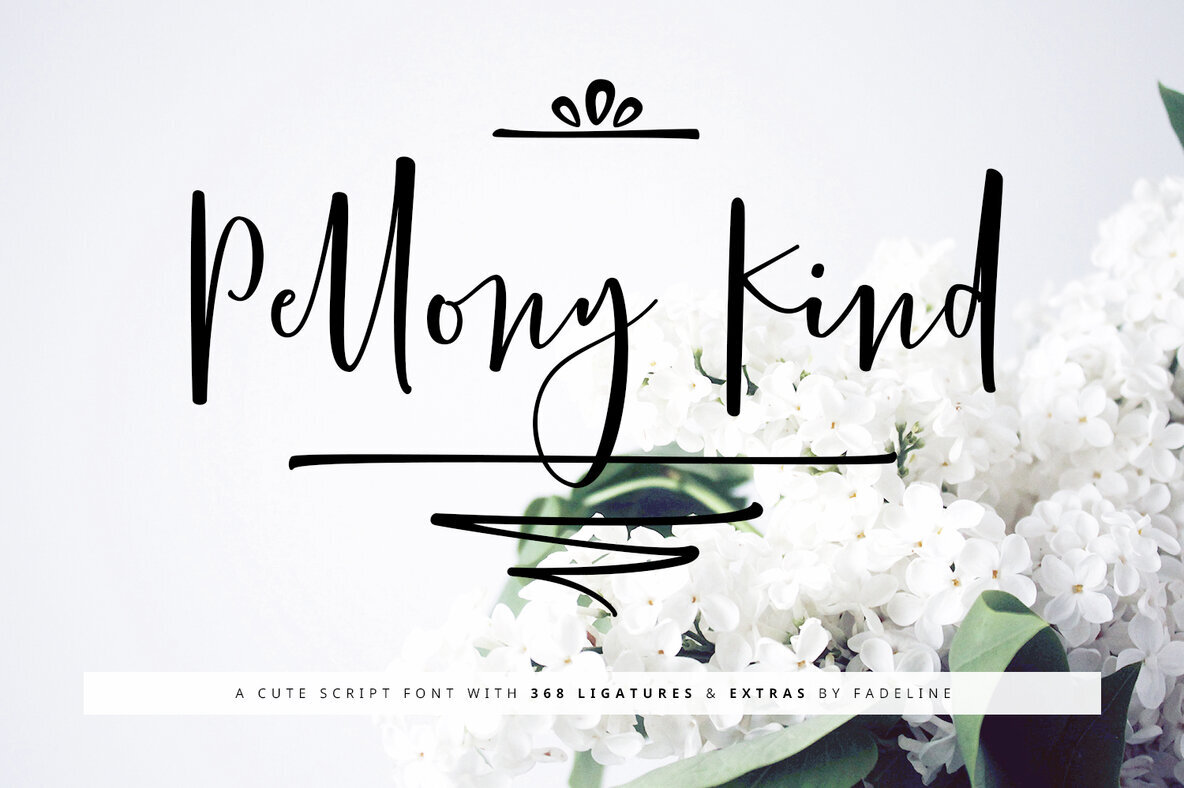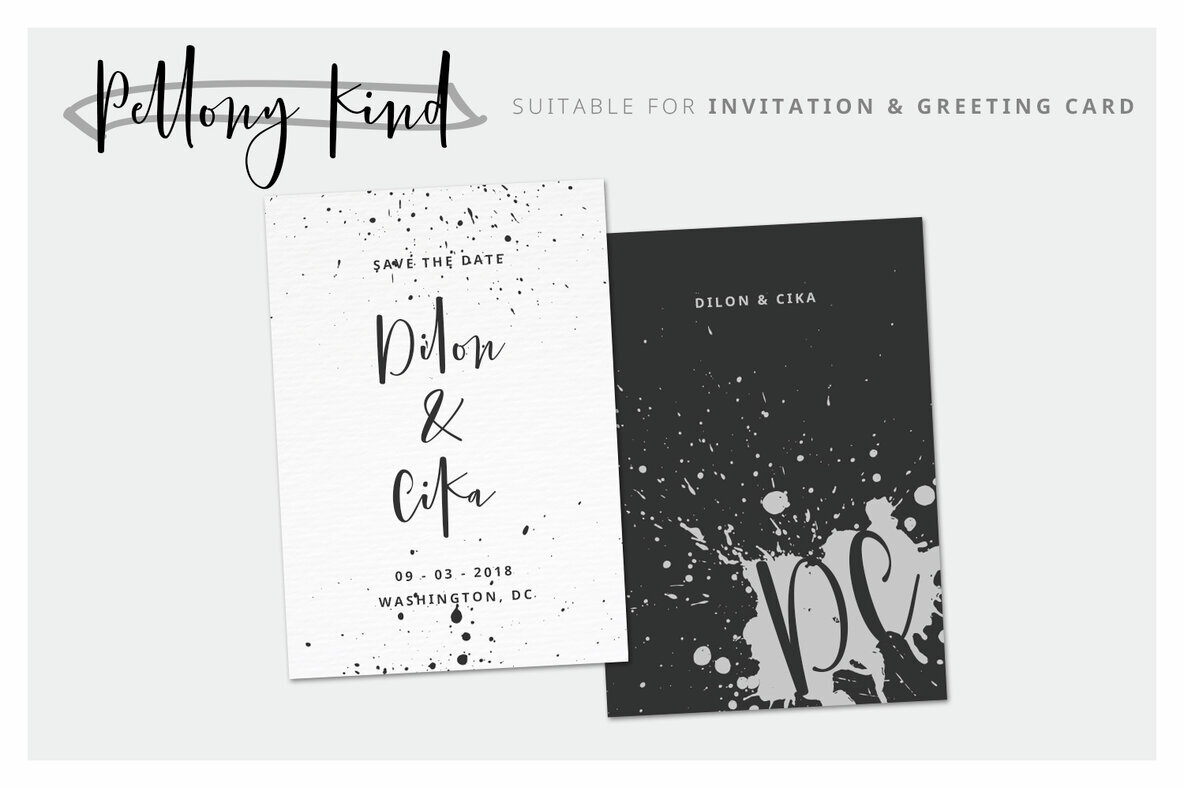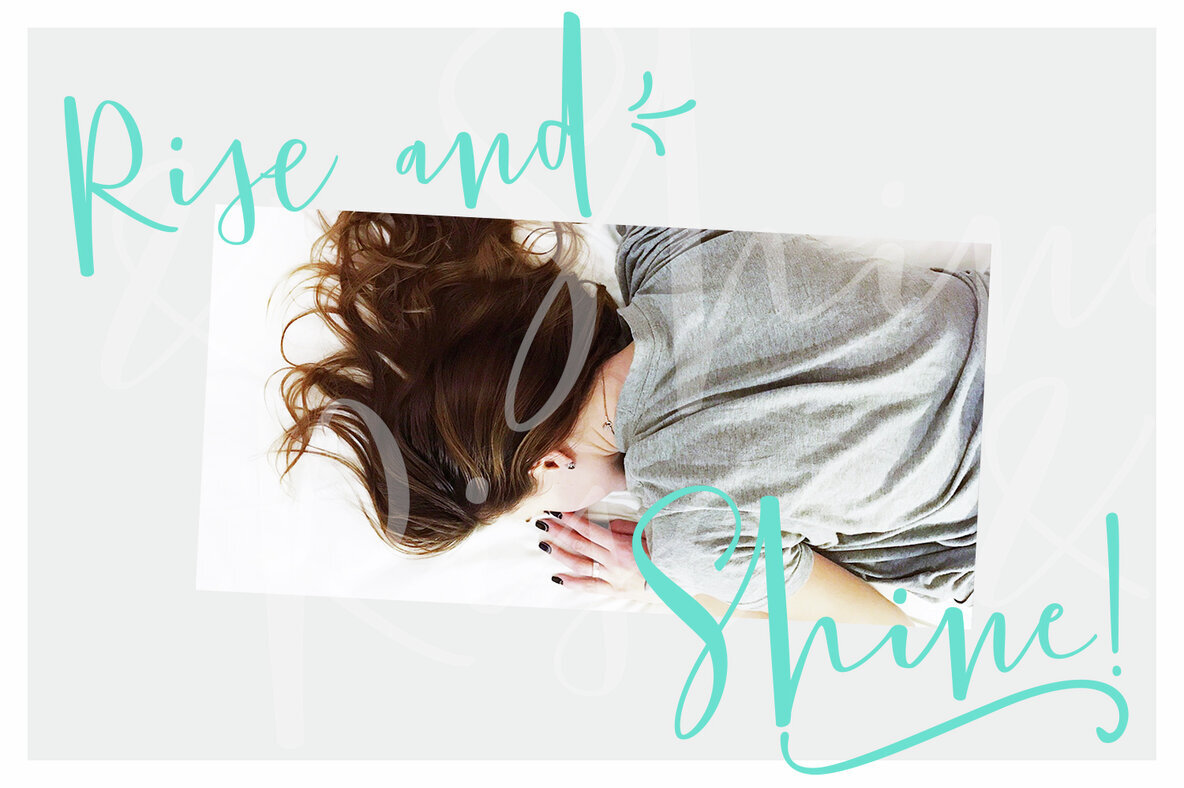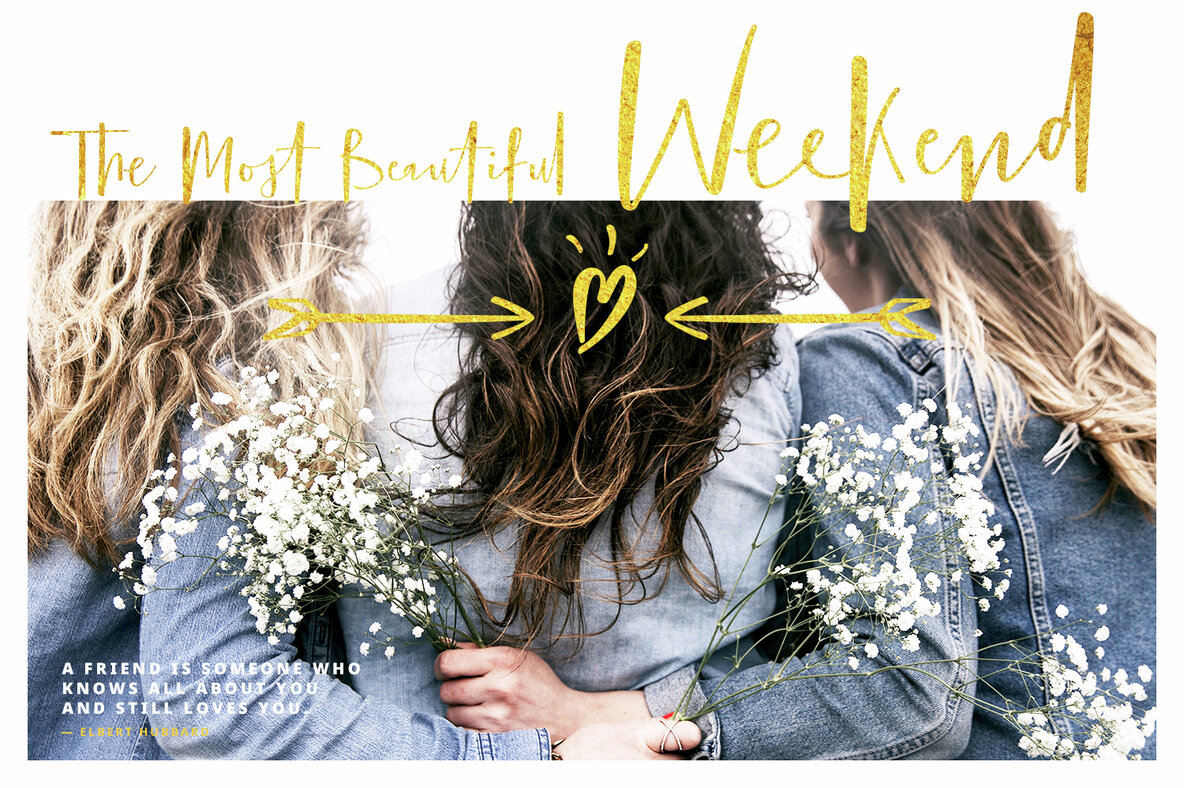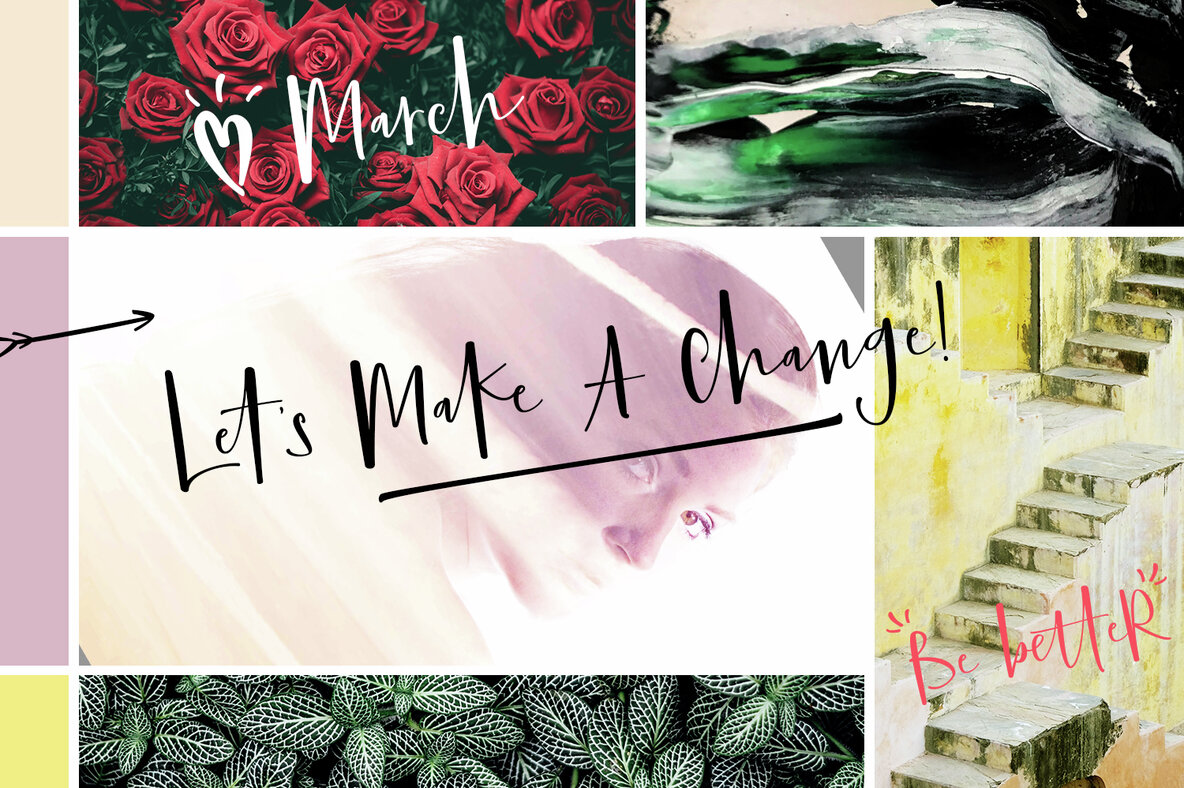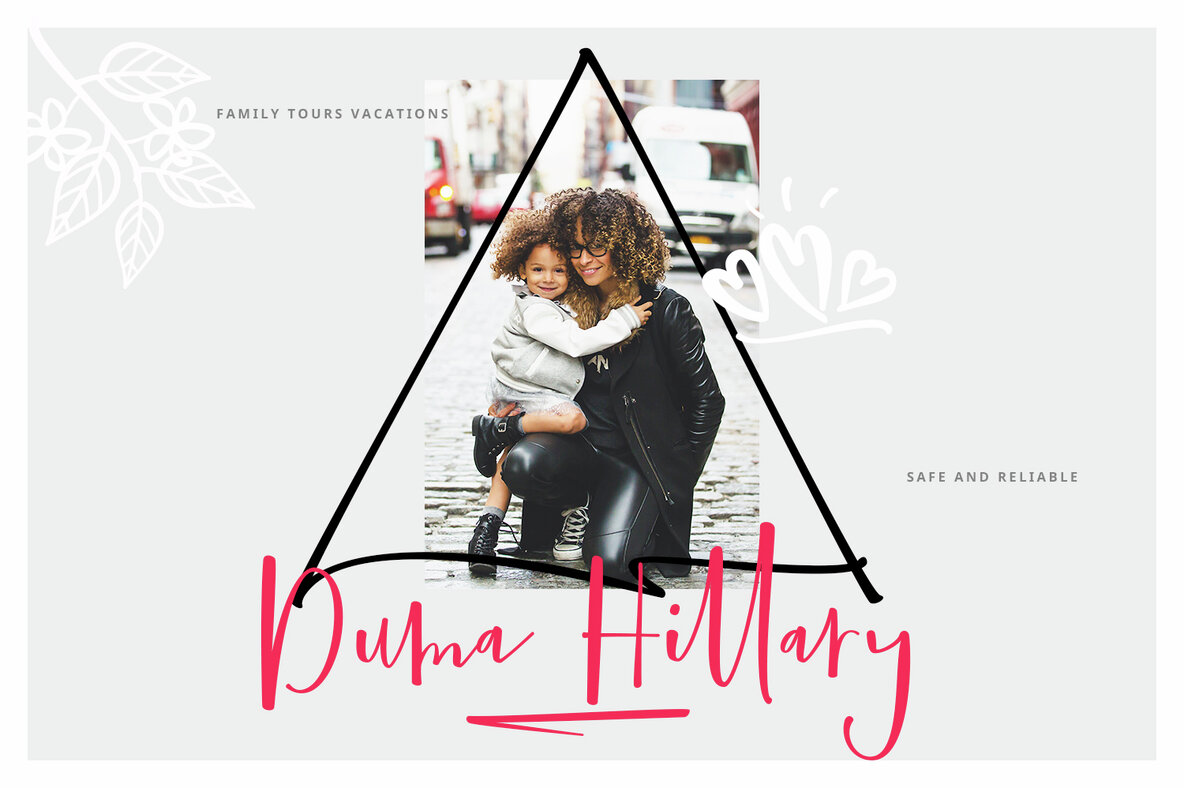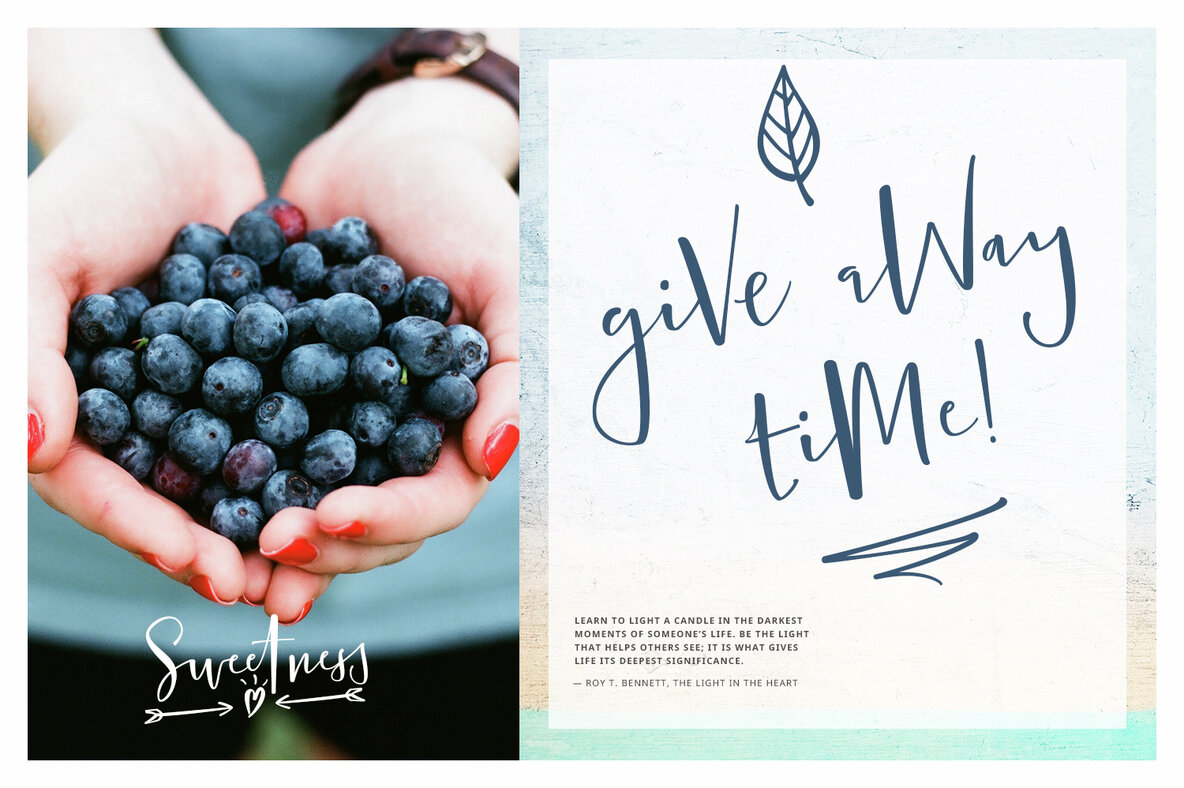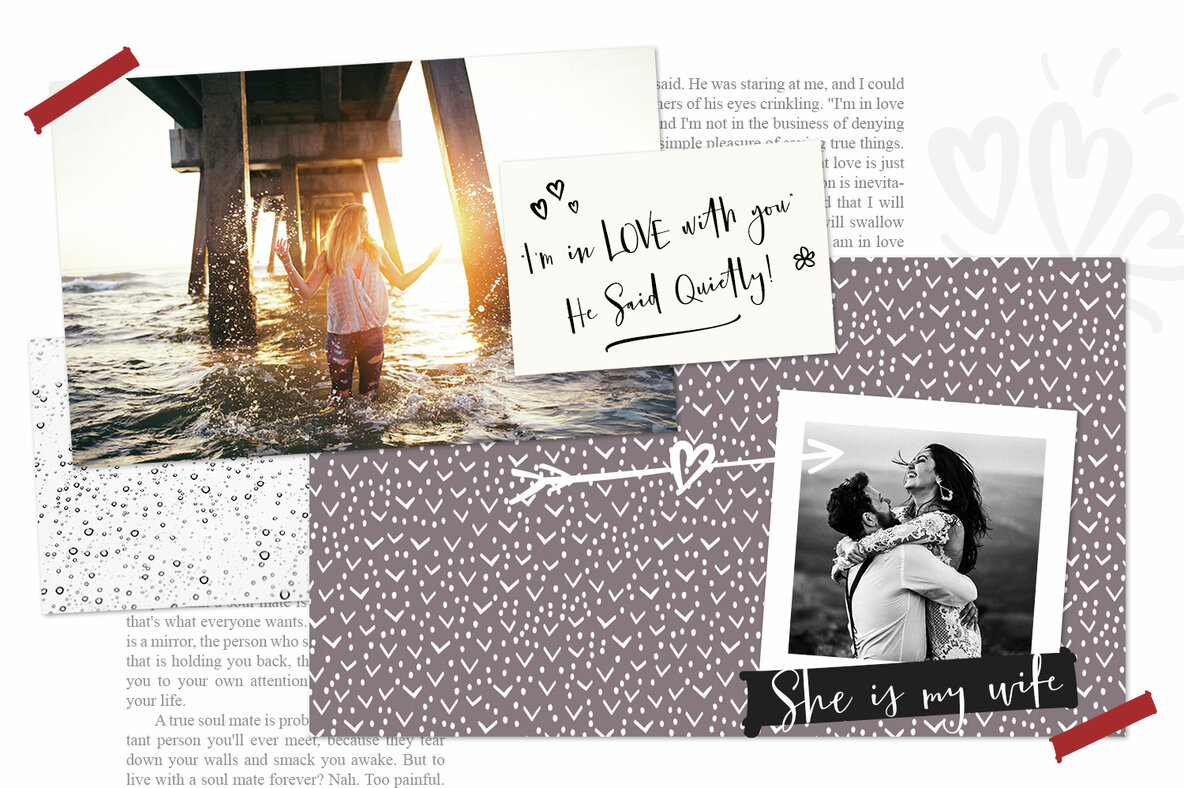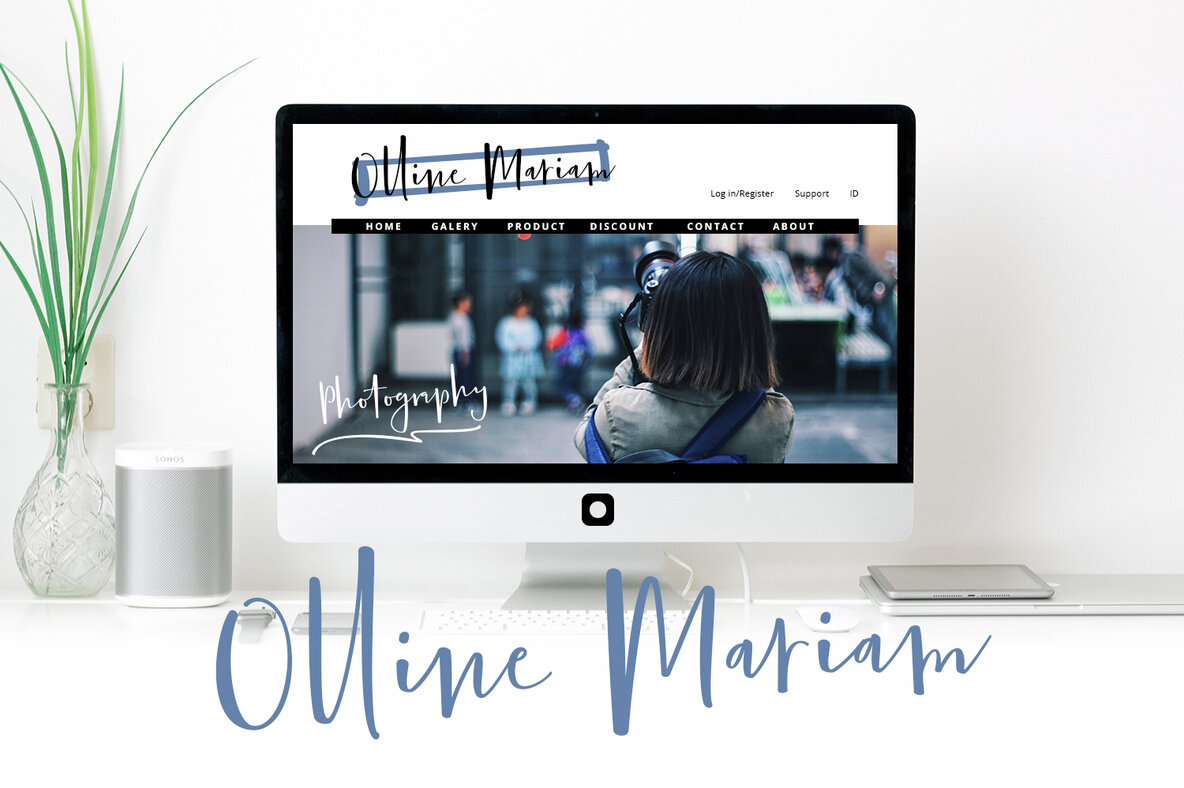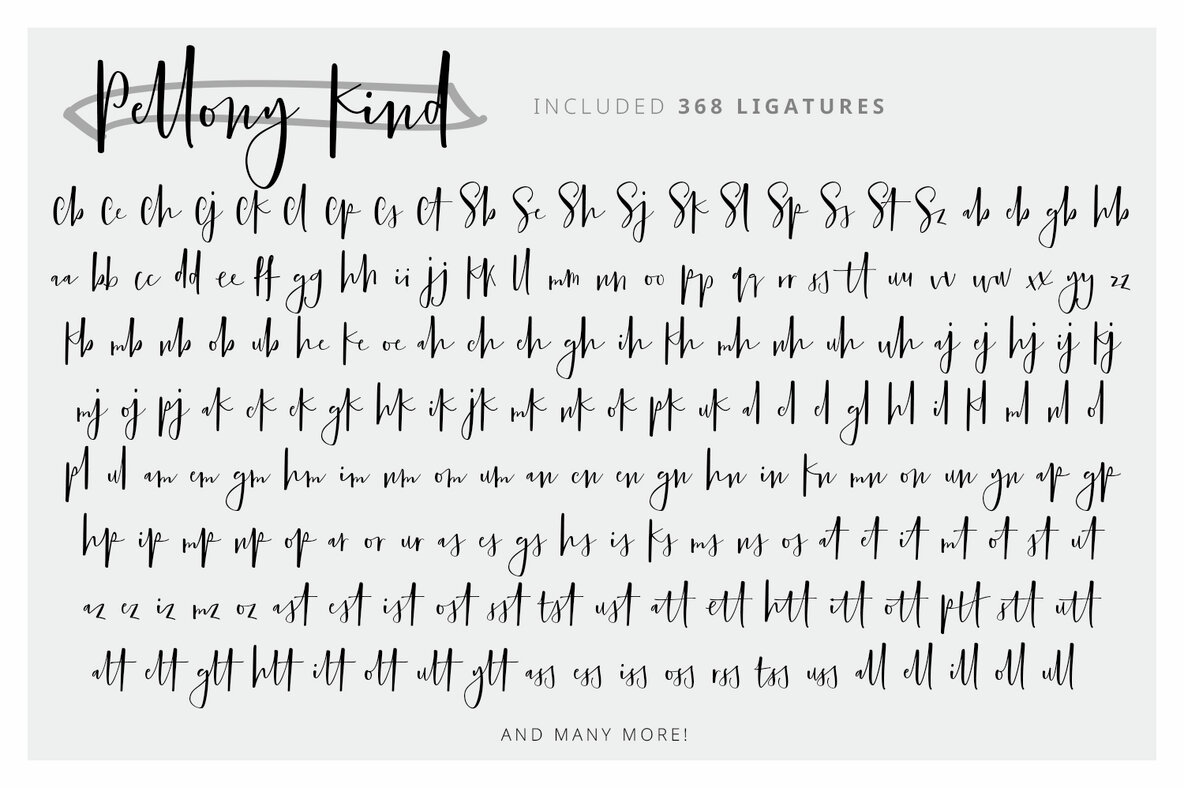
Pellony Kind Font
Discover the allure of Pellony Kind, a delightful handwritten script from FadeLine Studio. Crafted with a semibold touch, this font captures the essence of natural handwriting while offering comfort and elegance to any design project. Its carefully crafted style results in a seamless and engaging user experience.Pellony Kind: A Charming Handwritten Script